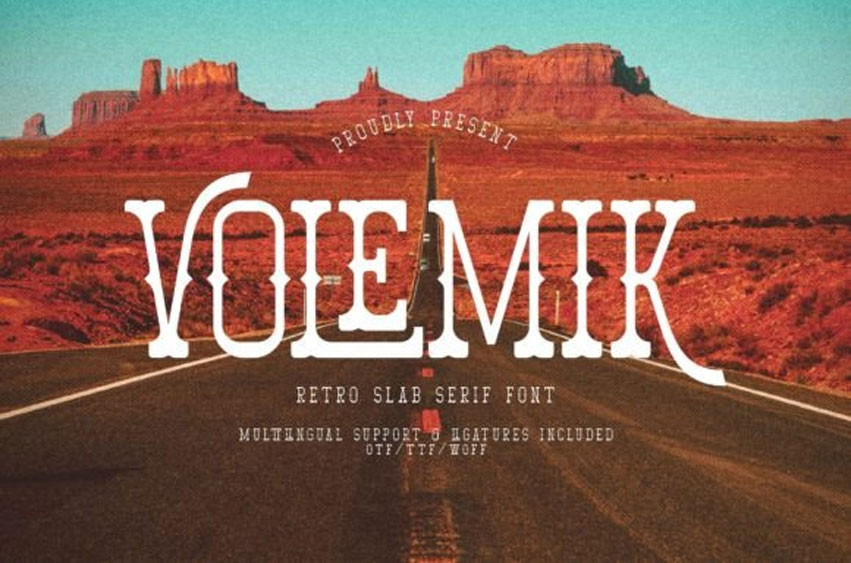
Volemik Font
Volemik Font is a type of font that looks old-fashioned and strong.
It has thick lines and a classic style, making it great for giving text a vintage feel.